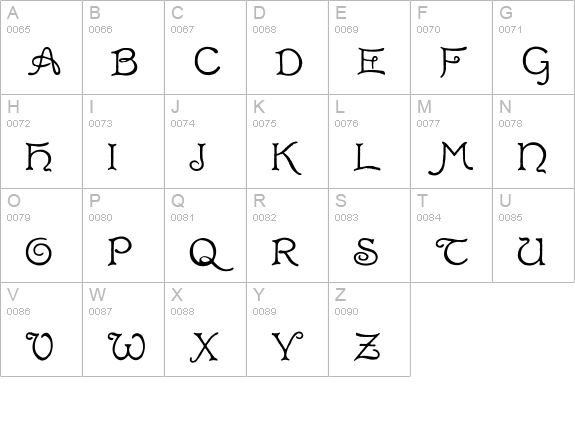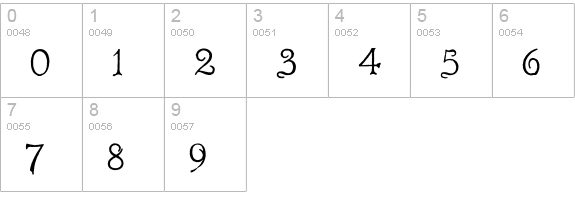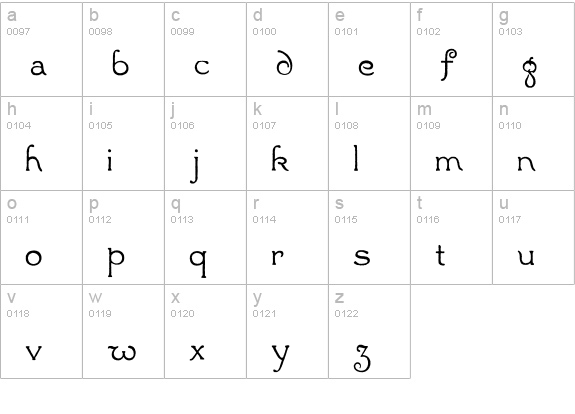
Radaern Font Details
Radaern font is a stunning display typeface that effortlessly combines elegance with a touch of modernity. Its unique and intricate letterforms are a true testament to the skill and craftsmanship of its designer. With its graceful curves and sharp angles, Radaern font captures attention and adds a touch of sophistication to any project. But what makes Radaern font truly exceptional is that it is available for free! Yes, you read that right. This beautiful font can be freely downloaded at FontsMarket.com, allowing you to bring a touch of class to your designs without breaking the bank. Whether you are working on a logo, a website, or any other design project, Radaern font is sure to make a lasting impression. Its versatility allows it to be used for both headings and body text, offering endless possibilities for creative expression. The smooth lines and balanced proportions of Radaern font create a harmonious visual experience that is pleasing to the eye. Its legibility ensures that your message is conveyed effortlessly, while its elegant details add an extra layer of sophistication. So why wait? Visit FontsMarket.com today and download the Radaern font for free. Elevate your designs with this exquisite typeface and make a statement that is both stylish and memorable.